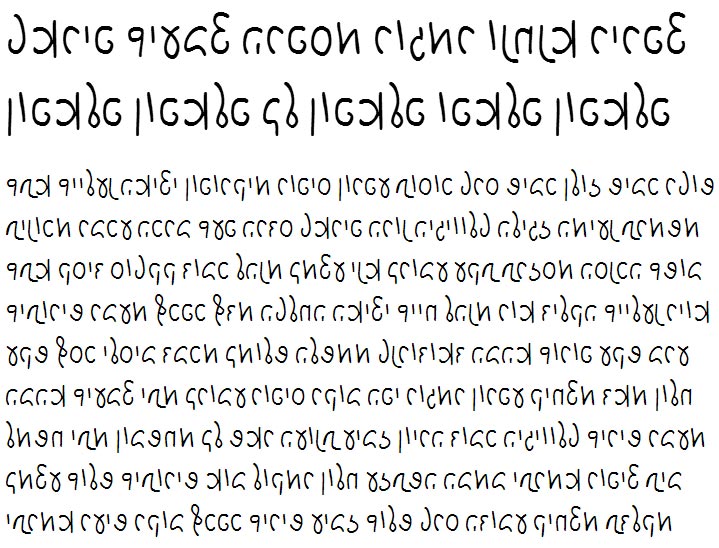
✓ A cursive hand-writing font, that tries to stay as close as possible to the most elementary, infantile shapes. The bold weight was first created, and then crafted into the regular weight. Motek is sweetheart in Hebrew.
X_Motek Hebrew Font